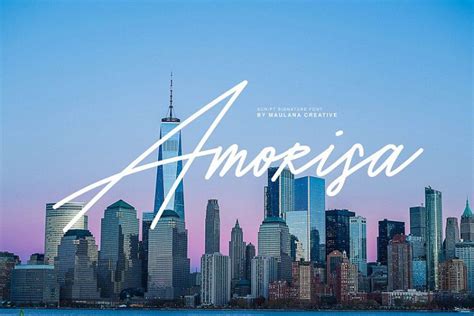
Amorisa Signature Font: A Guide To Elegant Typography
Amorisa Signature Font: Elevate Your Design with Elegance
Hey guys! Are you looking to infuse your designs with a touch of sophistication and personal flair? Then you’ve got to check out Amorisa Signature Font ! It’s not just a font; it’s a statement. This guide will walk you through everything you need to know about Amorisa, its features, and how you can use it to create stunning visual content. We’ll dive deep into the world of handwriting fonts , exploring what makes Amorisa stand out from the crowd and how it can transform your projects. Whether you’re a seasoned designer or just starting out, get ready to discover the magic of Amorisa!
Unveiling Amorisa Signature Font: What Makes It Special?
So, what exactly is Amorisa Signature Font ? It’s a beautifully crafted script font designed to mimic the fluidity and elegance of a handwritten signature. Think of it as a digital version of a personal touch, perfect for adding a sense of authenticity and style to your projects. Amorisa is more than just a collection of letters; it’s an experience. It brings a level of personality and warmth that can be difficult to achieve with standard, more rigid fonts. What makes it special? Well, its unique blend of classic calligraphy with a modern twist. The strokes are smooth, the curves are graceful, and the overall aesthetic is simply captivating. It’s like having a digital artist at your fingertips, ready to create beautiful lettering whenever you need it.
Amorisa truly shines when you consider its versatility. It’s not just a one-trick pony; it’s a font that can adapt to various design needs. Imagine using it for wedding invitations, where the romantic flair adds a touch of enchantment. Picture it on branding materials for businesses, giving them a professional yet personal image. Or envision it on social media graphics, where it draws the eye and makes your content stand out. The possibilities are endless!
And let’s not forget about the emotional impact of Amorisa Signature Font . It evokes feelings of elegance, sophistication, and intimacy. It’s a font that speaks to the heart, creating a connection with the viewer that’s hard to ignore. When used correctly, Amorisa can transform ordinary text into something extraordinary, leaving a lasting impression on anyone who sees it. It’s perfect for those seeking a font that combines artistic beauty with practical functionality. This is the beauty of Amorisa . It’s more than just a font; it’s a statement of style and grace, ready to elevate any design project. Ready to embrace the power of this amazing font?
Exploring the Features of Amorisa: A Deep Dive
Alright, let’s get into the nitty-gritty and explore the awesome features that make Amorisa Signature Font a top pick for designers. This font is packed with elements that allow you to customize and enhance your designs. One of the most notable features is its extensive character set. Amorisa includes a wide range of characters, including uppercase and lowercase letters, numbers, and punctuation marks. This comprehensive character set ensures you have everything you need to create compelling text.
But that’s not all! Amorisa also often comes with a variety of ligatures and alternates. Ligatures are special characters that combine two or more letters into a single glyph, creating a more seamless and natural appearance. Alternates are variations of individual letters, allowing you to add even more personality and flair to your text. Think of it as having multiple handwriting styles within a single font. This adds a unique and personalized touch to every project. Another exciting feature is its compatibility with various design software and platforms. Whether you’re a fan of Adobe Photoshop, Illustrator, or other design tools, Amorisa Signature Font is usually compatible, allowing you to seamlessly incorporate it into your workflow.
Moreover, many versions of Amorisa are optimized for both print and digital use. This means you can use it for anything from creating business cards and posters to designing websites and social media graphics. And let’s not forget about its readability. Despite its elegant script style, Amorisa is designed to be easily readable, ensuring your message is clear and engaging. The design balances artistic beauty with practical functionality. With its elegant curves and fluid strokes, Amorisa is designed to capture the essence of handwriting, adding a personal touch to your designs.
So, whether you’re working on a personal project or a professional assignment, Amorisa provides you with the tools to create stunning designs. It empowers you to express yourself creatively and bring your vision to life. Its features are designed to give you complete control and flexibility, making it a valuable asset for any designer. With all these features, it’s easy to see why Amorisa Signature Font has become a favorite among designers worldwide.
Amorisa in Action: Practical Applications and Design Tips
Let’s get practical, shall we? How can you actually use Amorisa Signature Font to create amazing designs? The answer is: in countless ways! Amorisa shines in applications where a touch of elegance and personal flair are desired. One of the most popular uses is in wedding invitations. The flowing script adds a romantic and sophisticated touch, setting the tone for the special day. You can use it for the names of the couple, the date, and the location, creating a memorable invitation that reflects your personal style. But the fun doesn’t stop there. Think about using Amorisa for branding projects. For businesses, it can add a touch of personality and warmth to your logo, business cards, and other marketing materials.
It’s especially effective for brands that want to convey a sense of authenticity and human connection. Amorisa adds a unique touch that makes your brand stand out from the crowd. Let’s talk about social media. In the age of visual content, using Amorisa Signature Font can instantly elevate your posts. Whether you’re creating quote graphics, announcements, or captions, the font grabs attention and adds a stylish touch to your content. Try experimenting with different colors and backgrounds to maximize the impact. Now, here’s some pro tips to consider when using Amorisa. The first thing is to maintain readability. While the font is beautiful, it’s important to ensure your text is easily legible. Use it for headlines and short phrases, rather than long blocks of text.
Next, consider the context. Amorisa is ideal for certain projects, but might not be the best choice for others. It’s best suited for projects where you want to evoke a sense of elegance, intimacy, or sophistication. Play with sizes. Experiment with different font sizes to see what works best for your design. Amorisa can look great in both large and small sizes, so try a few options to find the perfect fit. And always remember to use color wisely. Experiment with different colors that complement the font and the overall design. By following these tips, you can leverage the power of Amorisa Signature Font to create stunning and effective designs that will captivate your audience and make a lasting impression.
Script Fonts vs. Handwriting Fonts: Understanding the Nuances
Okay, let’s clear up some potential confusion, shall we? You’ll often hear the terms script fonts and handwriting fonts used interchangeably. However, there are subtle differences to consider. Script fonts, in general, encompass a broader category of fonts that imitate handwriting. They can range from formal calligraphic styles to more casual, modern designs. Handwriting fonts , on the other hand, aim to more closely replicate the appearance of actual handwriting. They often feature slight imperfections, variations in stroke thickness, and other details that make them feel more authentic and personal. Think of it like this: all handwriting fonts are script fonts, but not all script fonts are handwriting fonts. Amorisa falls into the handwriting category, as it’s specifically designed to mimic the natural flow and unique characteristics of handwriting. It’s all about achieving a specific look and feel. The primary goal of a handwriting font is to create a sense of authenticity and personal touch. This is what sets Amorisa apart and makes it perfect for projects that require a human element.
Understanding these nuances helps you choose the right font for your project. If you want a more formal, elegant look, a traditional script font might be suitable. However, if you want to create a more personal, intimate, and authentic feel, a handwriting font like Amorisa is the way to go. These types of fonts add personality and warmth to your designs, making them more engaging and memorable. When selecting a font, consider the overall message and tone you want to convey. If you’re aiming for elegance and sophistication, Amorisa’s signature style will enhance your designs. By differentiating between script fonts and handwriting fonts , you’ll be well-equipped to make the right choice for your project. It’s about finding the perfect font to match your creative vision and communicate your message effectively. And remember, Amorisa is designed to bring that human touch to every design!
The Allure of Modern and Calligraphy Fonts: Why Amorisa Stands Out
Let’s dive a bit into the broader context of modern fonts and calligraphy fonts , and see where Amorisa Signature Font fits in. The design world is constantly evolving, with new fonts emerging all the time. Two popular categories are modern fonts and calligraphy fonts . Modern fonts are known for their clean, minimalist designs, often featuring sharp lines and geometric shapes. They’re perfect for projects that require a sleek, contemporary look. Calligraphy fonts, on the other hand, draw inspiration from the art of beautiful writing. They often feature flowing strokes, elegant curves, and a sense of artistic flair.
Amorisa blends these styles. It has the flowing elegance of calligraphy fonts with the accessibility and versatility of modern fonts . What makes Amorisa stand out is its balance. It offers a fresh, contemporary take on the classic calligraphy style, which makes it perfect for various applications. It adds sophistication without being overly formal. Amorisa bridges the gap between the traditional and the modern, providing a unique aesthetic that appeals to a wide range of audiences. In a world saturated with design options, finding a font that combines these elements is crucial. It’s important to understand the unique characteristics of each style to make informed choices for your projects. Modern fonts provide a clean and contemporary look, while calligraphy fonts add elegance and artistic flair. Amorisa does both! It empowers designers to create visuals that are both visually appealing and effective in conveying the intended message. Its versatility, style, and ease of use make it a powerful tool for bringing your creative vision to life.
Where to Find and How to Use Amorisa Signature Font
Alright, let’s get you hooked up with Amorisa Signature Font ! The good news is, finding and using this fantastic font is easier than you think. You can typically find Amorisa on various online font marketplaces and design resources. Websites like Creative Market, Envato Elements, and MyFonts are great places to start. These platforms offer a wide selection of fonts, often with different licensing options to suit your needs. When you find Amorisa, you’ll usually have the option to purchase a license. Make sure you read the license carefully to understand the terms of use. Some licenses are for personal use only, while others cover commercial use.
Once you’ve purchased and downloaded the font, the installation process is typically straightforward. On most computers, you simply double-click the font file and follow the prompts to install it. After installation, the font will be available in your design software. Once the font is installed, it’s time to unleash your creativity! Open your favorite design software, such as Adobe Photoshop, Illustrator, or Canva, and select the text tool. Then, choose Amorisa from the font list, start typing, and watch the magic happen. When you choose Amorisa, experiment with different font sizes, colors, and effects to achieve the desired look. Don’t be afraid to mix and match it with other fonts to create unique and eye-catching designs. Consider pairing it with a clean, sans-serif font for headlines and body text to create a balanced design.
Amorisa is versatile, so don’t be afraid to experiment. By taking these steps, you can start using Amorisa to create designs that are as unique and beautiful as you are. Remember to always respect the licensing terms and have fun with it! With a little creativity, you can use Amorisa Signature Font to bring your creative vision to life and leave a lasting impression on your audience.
Final Thoughts: Embrace the Beauty of Amorisa
So there you have it, guys! We’ve covered everything you need to know about Amorisa Signature Font . From its elegant features to its versatile applications, it’s a font that’s sure to elevate your designs. Remember, Amorisa is more than just a font; it’s a tool that empowers you to express your creativity. Whether you’re working on invitations, branding materials, or social media graphics, Amorisa can add a touch of elegance and personality to your projects.
It’s a font that speaks to the heart, creating a connection with your audience. So, embrace the beauty of Amorisa and start creating stunning designs today! Don’t hesitate to experiment, explore, and let your creativity shine. With its unique features and endless possibilities, Amorisa is the perfect choice for anyone who wants to create designs that are both beautiful and memorable. If you’re ready to add a touch of sophistication to your work, give Amorisa a try. You won’t be disappointed! Now go forth and create something beautiful!